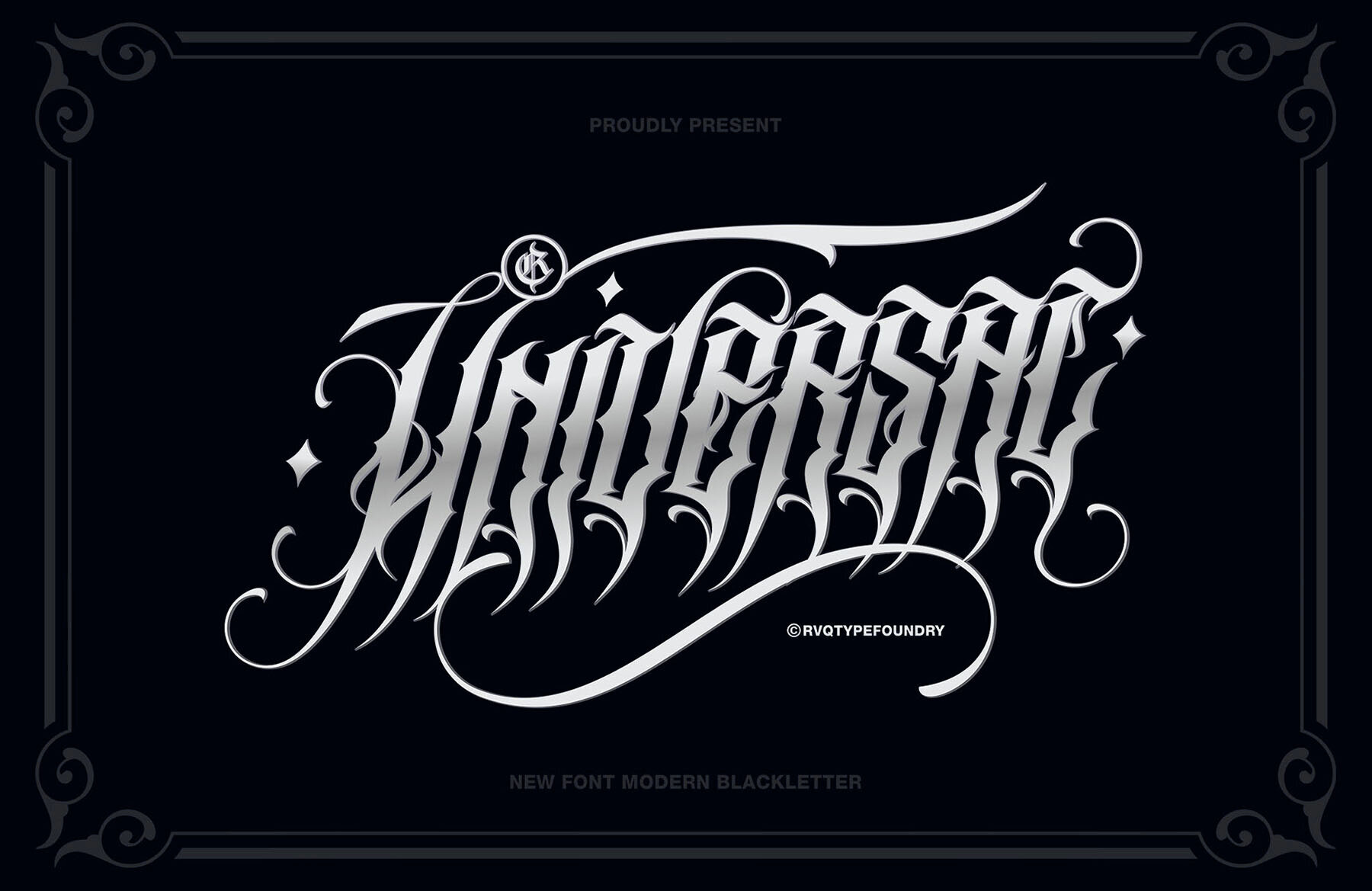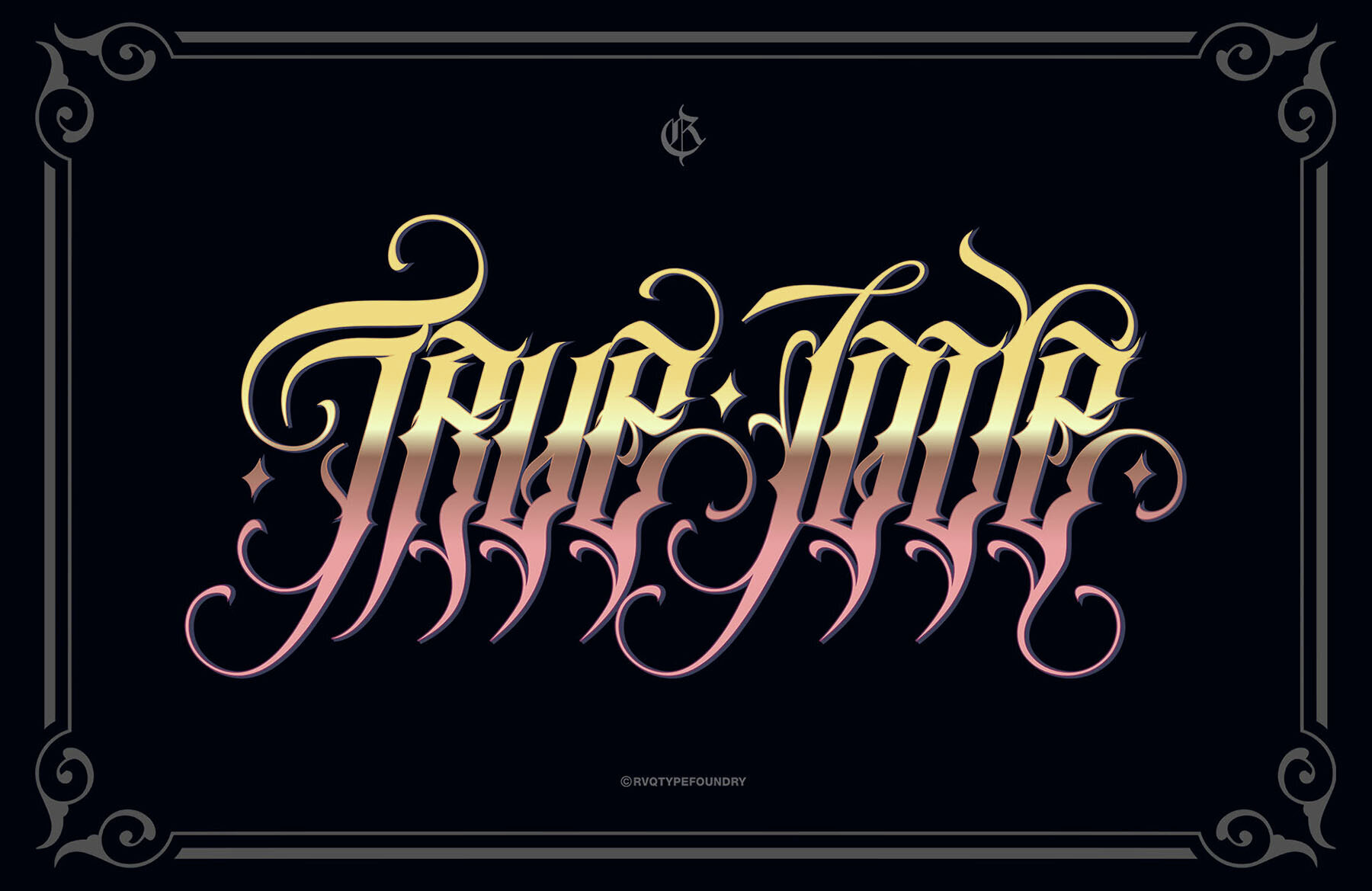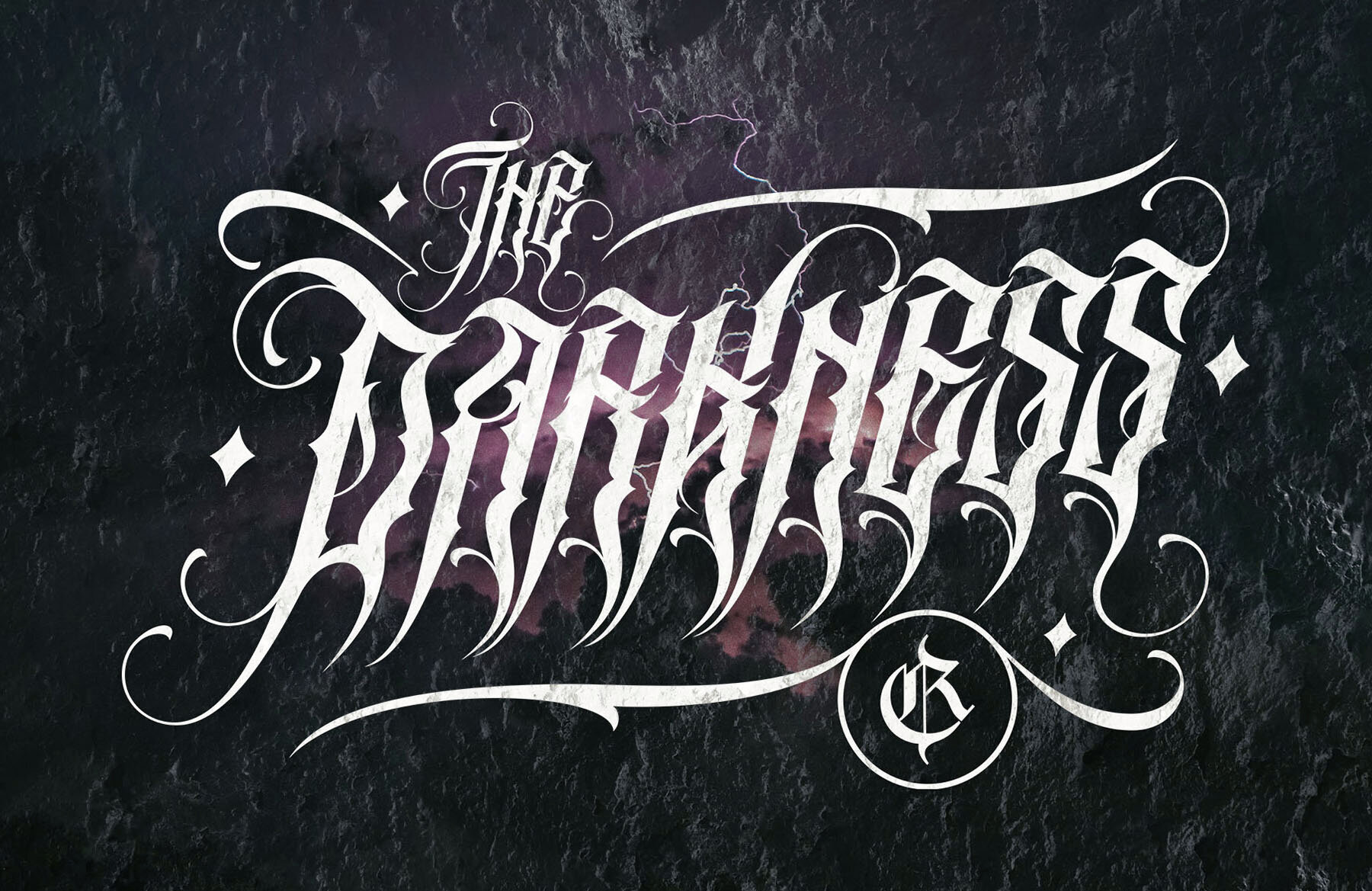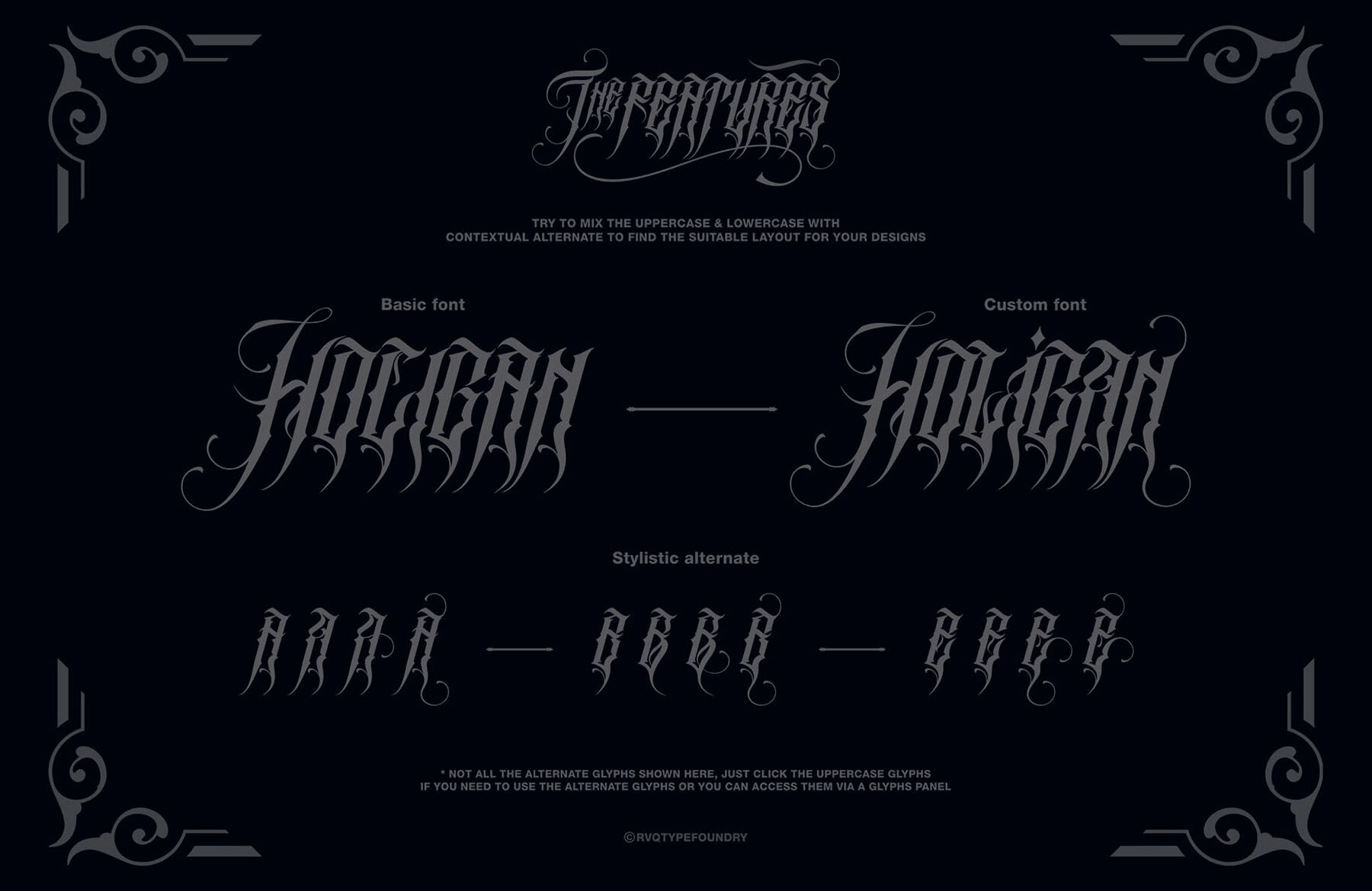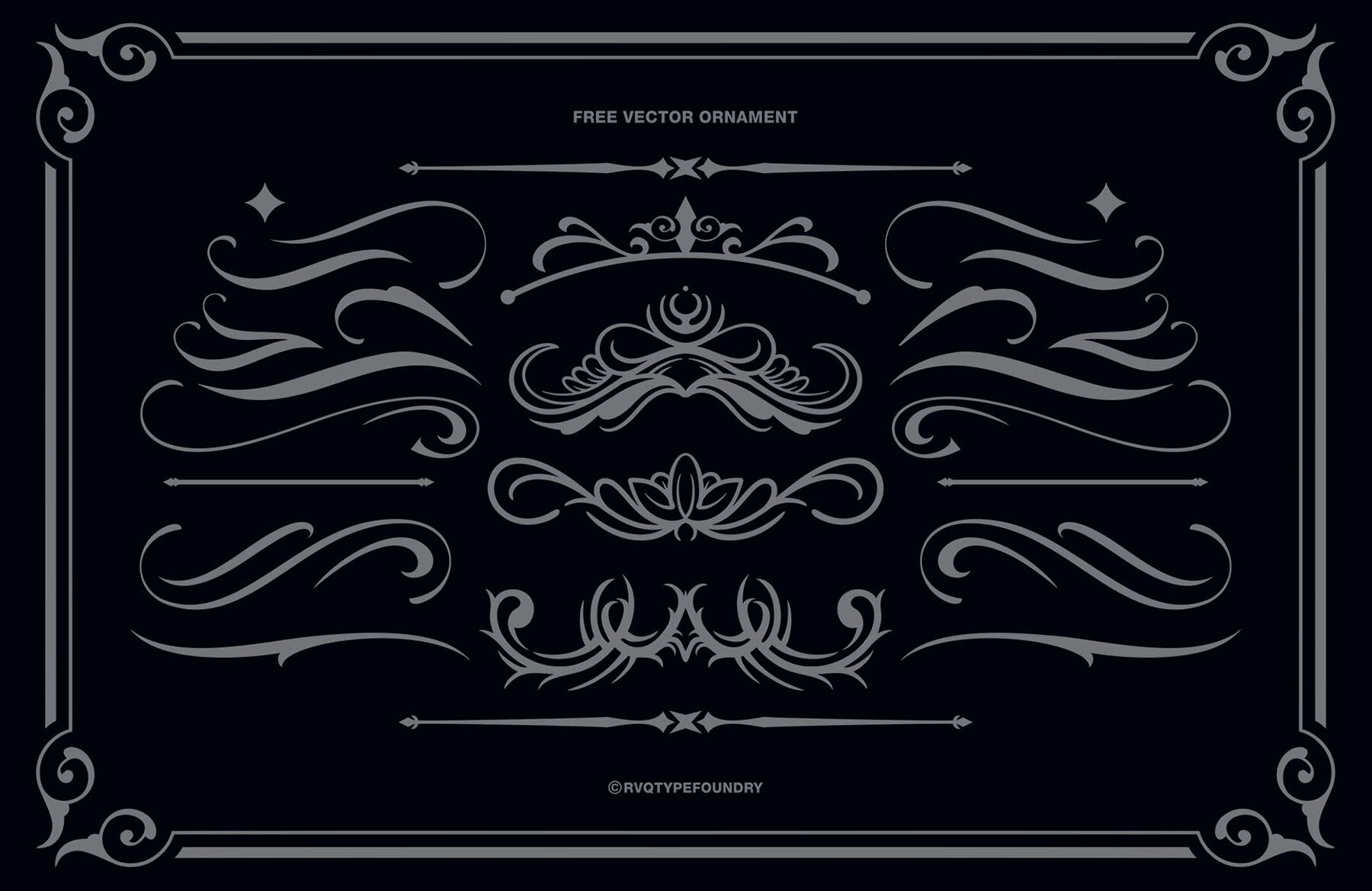
Universal Blackletter Font
Universal Blackletter is a versatile font from Rvq Type Foundry, designed to serve multiple creative needs. Featuring an exquisite set of capital and lowercase letters, this typeface includes multilingual support, currency figures, numerals, punctuation, and additional glyphs. Its unique combination options, enabled by alternative glyphs, allow for creative and aesthetic lettering, making it an excellent choice for branding, logos, greeting cards, stationery, invitations, apparel, packaging, posters, and other typographic designs.
The key features of Universal Blackletter include a comprehensive character set (A-Z), numerals, punctuation in OpenType Standard, multilingual accents, and stylistic alternates. For added creative flair, it also comes with a vector ornament. This font provides all the elements needed to craft visually stunning and effective designs for a wide range of applications.